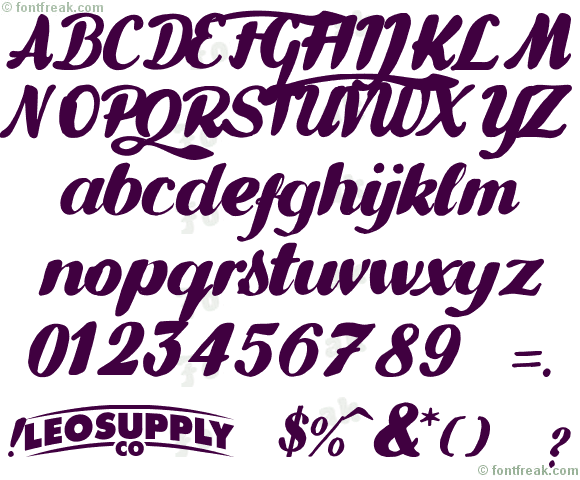
Gullias
About Gullias
Gullias, designed by Leonard Posavec, is a captivating display font that stands out for its unique blend of elegance and modernity. This typeface falls into the category of decorative fonts, making it an excellent choice for creative projects that require a touch of flair. The visual characteristics of Gullias are striking, featuring a bold stroke weight that conveys confidence, coupled with smooth curves that enhance its aesthetic appeal. The font showcases a balanced contrast between thick and thin lines, creating a sense of rhythm and flow that draws the eye. Its generous spacing allows for easy readability, making it suitable for both headlines and shorter texts.
Gullias is particularly well-suited for a variety of creative applications. It can elevate wedding invitations with its romantic flair, making any event feel more special. Additionally, this font is ideal for movie posters, where its bold presence can capture attention and evoke intrigue. Restaurant menus can benefit from Gullias as well, adding a touch of sophistication that complements gourmet offerings. Content creators and graphic designers will find this font useful for social media graphics and promotional materials, allowing their projects to stand out in a crowded digital landscape.
The target audience for the Gullias font includes graphic designers, small business owners, and content creators who seek to enhance their visual communication. With its freeware license, the Gullias font free download makes it accessible for those looking to explore its unique style without financial commitment. What truly sets Gullias apart is its ability to blend artistic flair with versatility, making it a perfect choice for anyone looking to leave a lasting impression in their design work.